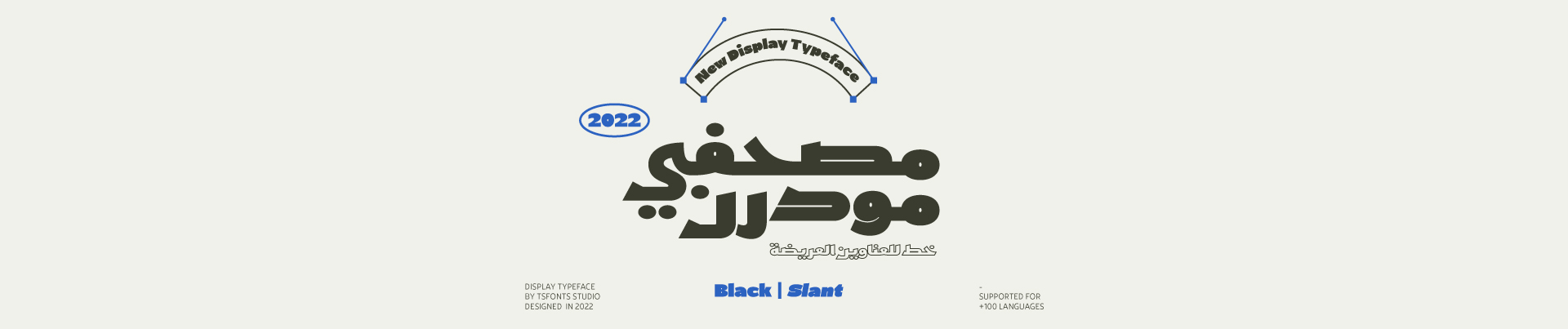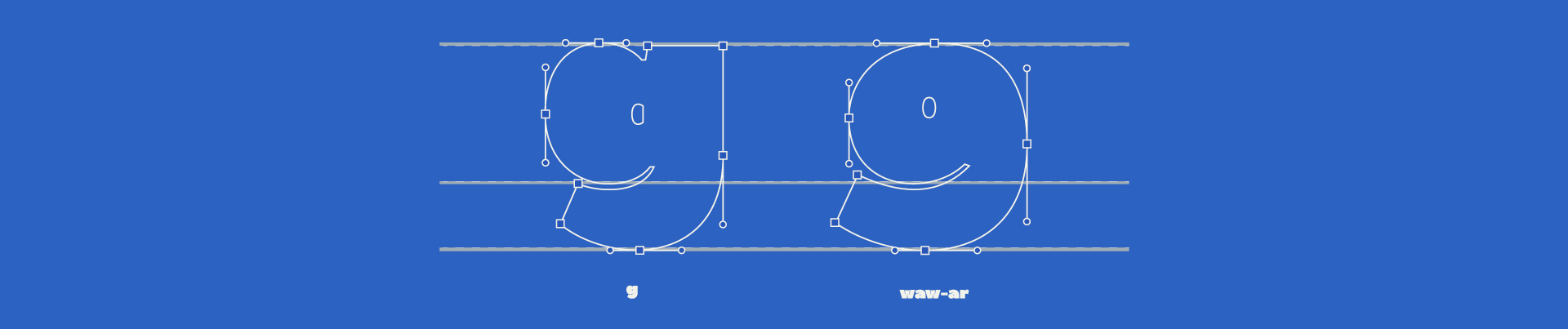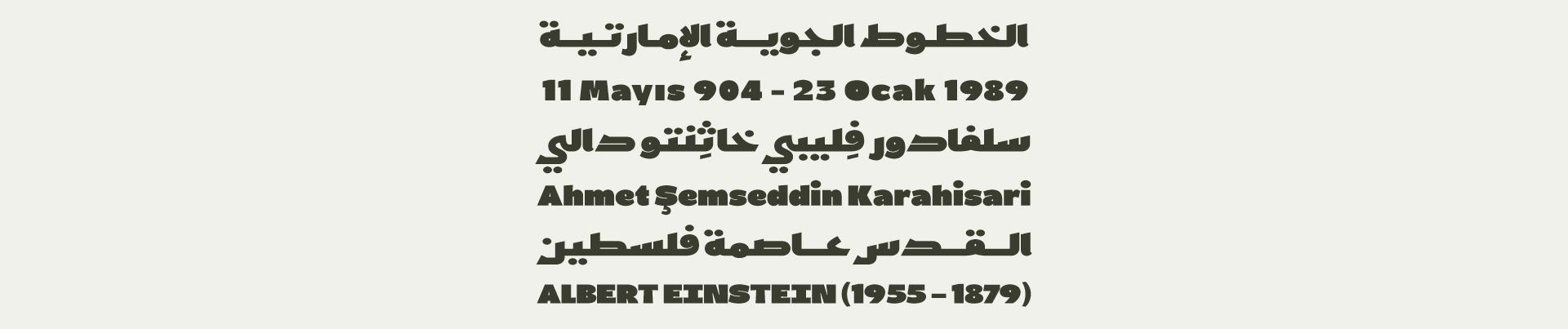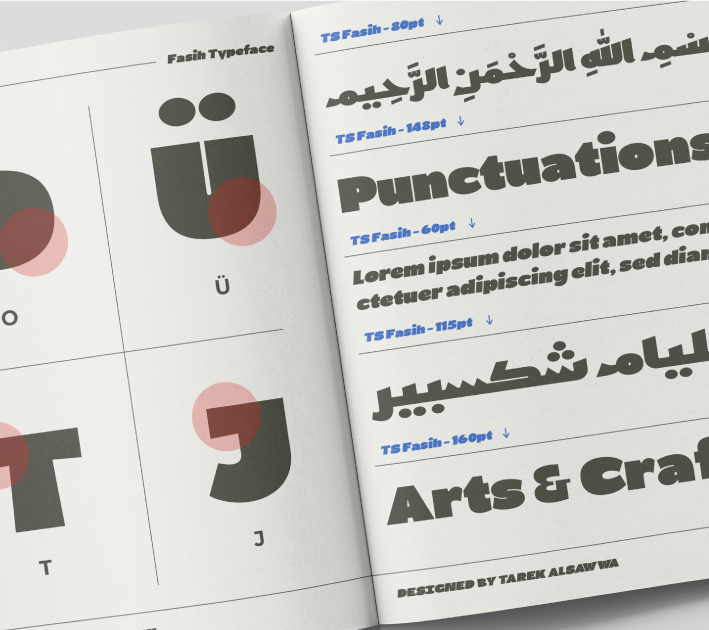
About Fasih Font
Introduction:
Fasih is a fat display typeface, with Arabic letters inspired by ancient manuscripts written in the Mus’hafi Kufic script with a touch of modernity. It is characterized by a strong personality and flexibility.
Weights and Languages:
It consists of 2 Weights. It supports Latin and Arabic.
Usage:
Fasih typeface is used in headlines, posters, websites, social media, and visual identities.
Designing & Developing:
TSfonts Type Studio
Tarek Alsawwa